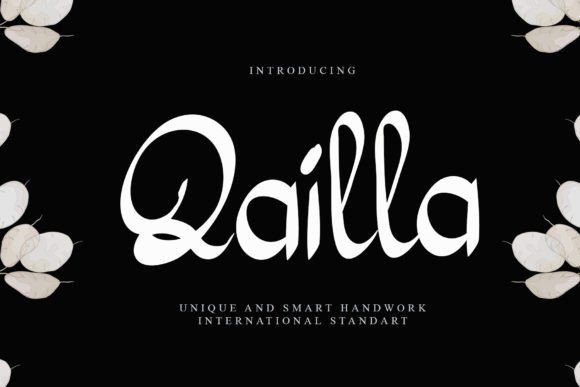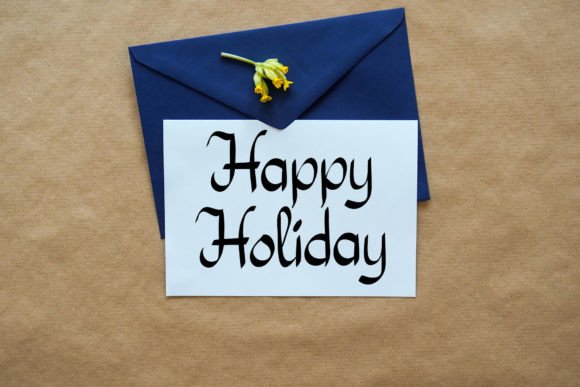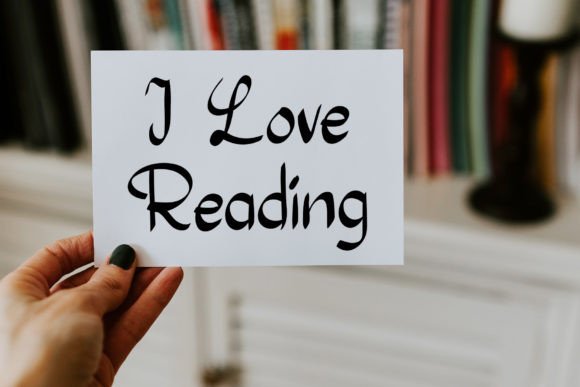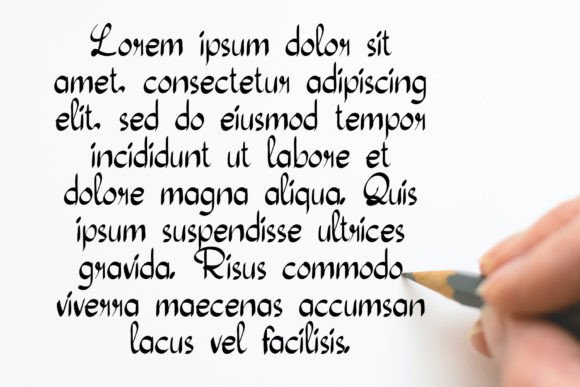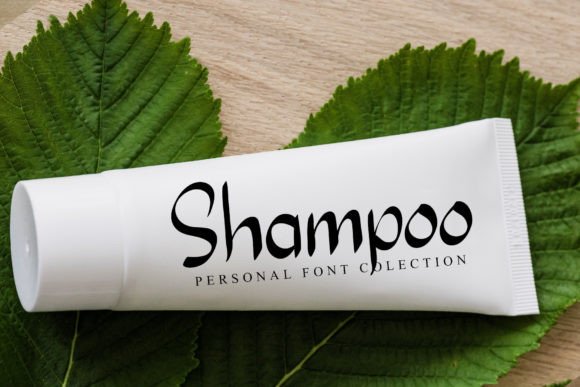
Qailla Font
About Qailla Font: Elegant and Flowing Handwritten Script
Qailla font presents a delicate and elegant handwritten style that effortlessly adds charm and sophistication to your creative projects. Its flowing strokes and well-balanced characters make it an excellent choice for a variety of design needs, from personal to professional.
Delicate and Elegant Design
Qaillafont features a graceful and flowing script that captures the beauty of natural handwriting. Its delicate lines and smooth curves give your designs a refined and polished look. This font excels in conveying warmth and elegance.
Versatile for Many Designs
Due to its balanced and timeless design, Qailla font suits a wide range of projects. Whether you’re working on wedding invitations, logos, cards, or packaging, this font blends seamlessly and enhances the overall .
Enhancing Your Creative Projects
Using Qaillafont, you can elevate your work with a touch. Its natural flow and elegant character shapes make it a perfect fit for any project that calls for a handwritten, personal feel without sacrificing professionalism.
Why Choose Qailla Font?
Qaillafont stands out because of its combination of and elegance. It is versatile and easy to read, making it a great asset for designers looking to add a timeless handwritten script to their collection.